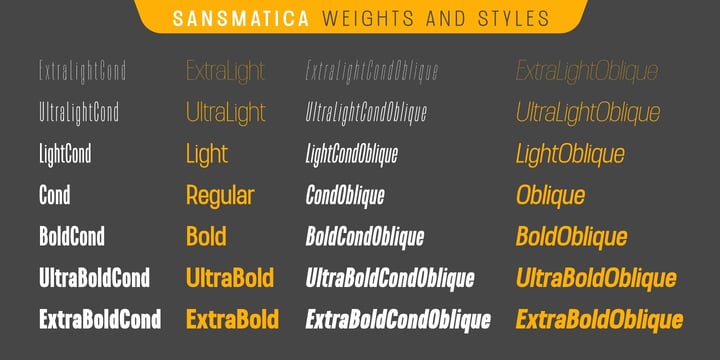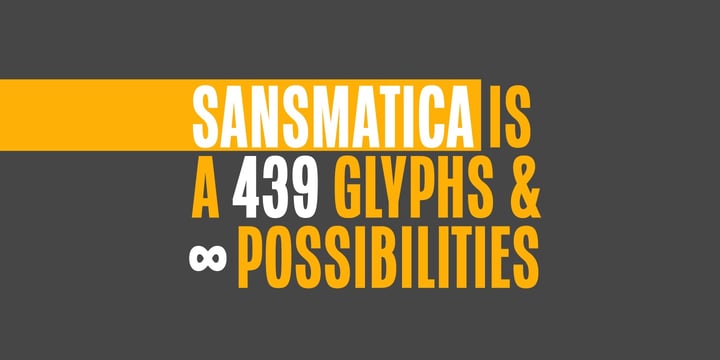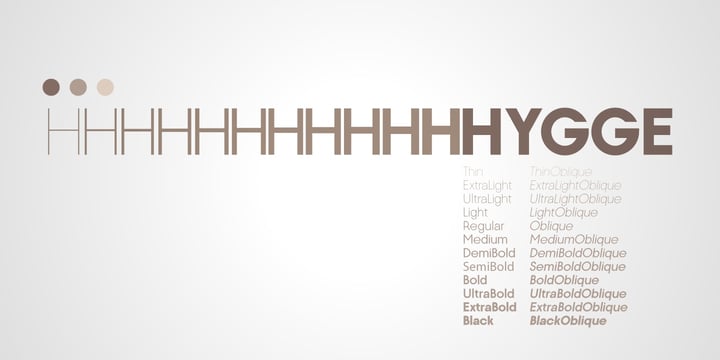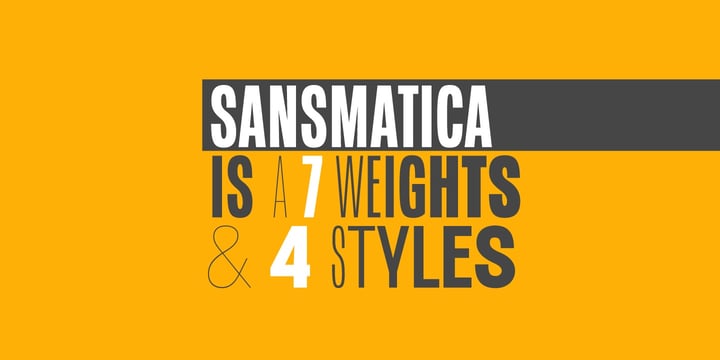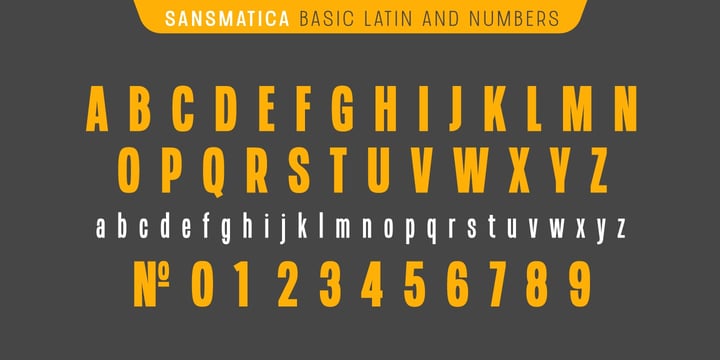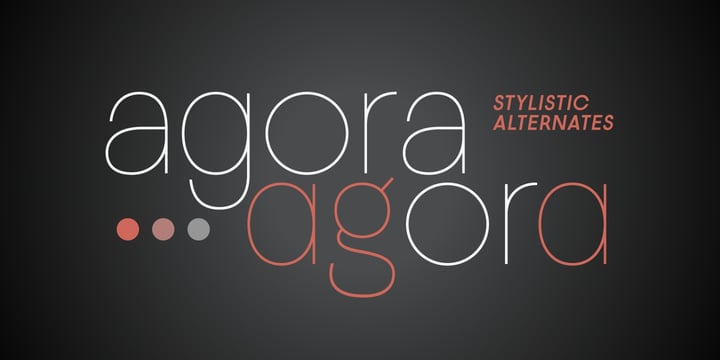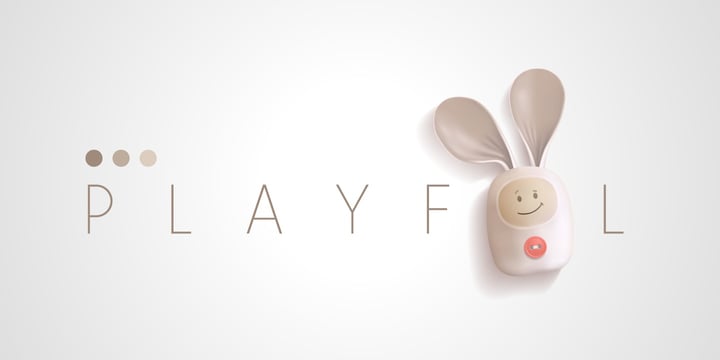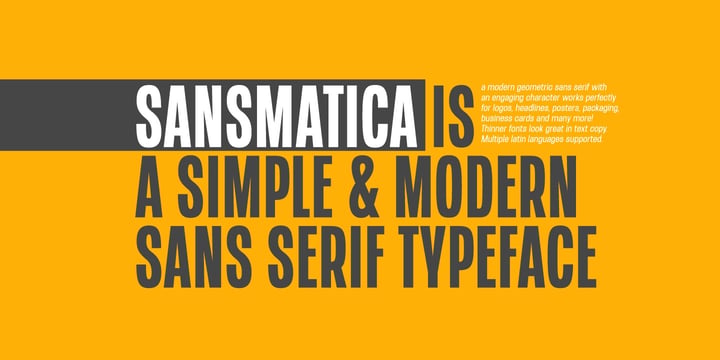
Modern Duo
Modern Duo is a curated bundle of two contemporary sans serif fonts designed for versatility and effortless style. Each typeface stands strong on its own, offering clean lines, modern proportions, and excellent readability across a wide range of applications.
Perfect for branding, editorial design, social media, packaging, and web use, Modern Duo delivers a balance of simplicity and character, making it a reliable choice for both minimal and expressive layouts.
Modern Duo is a curated bundle of two contemporary sans serif fonts designed for versatility and effortless style. Each typeface stands strong on its own, offering clean lines, modern proportions, and excellent readability across a wide range of applications.
Perfect for branding, editorial design, social media, packaging, and web use, Modern Duo delivers a balance of simplicity and character, making it a reliable choice for both minimal and expressive layouts.